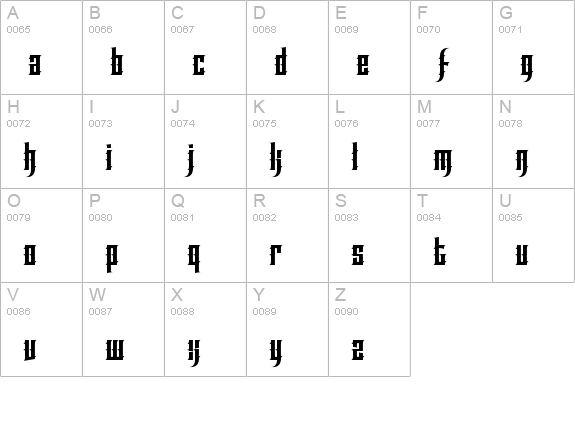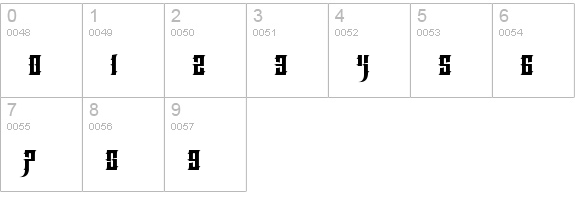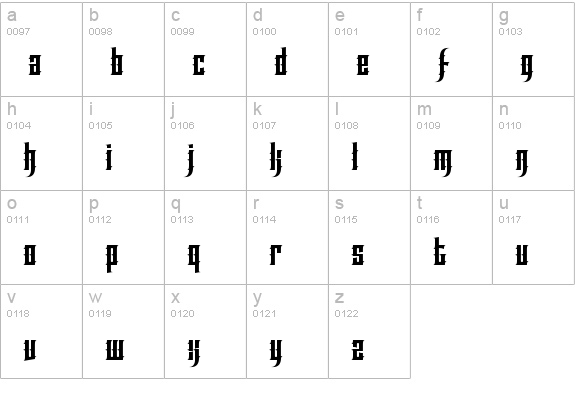
Effortless Tattoo Font Details
Effortless Tattoo font exudes a sense of edgy sophistication with its bold and expressive letterforms that are reminiscent of intricate tattoo designs. This unique font strikes the perfect balance between elegance and rebellion, making it a versatile choice for a wide range of creative projects. Effortless Tattoo font is effortlessly cool and stylish, adding a touch of attitude to any design it graces. Whether you're looking to create striking headlines, eye-catching logos, or captivating posters, this font is sure to make a statement. The best part? Effortless Tattoo font is completely free to download at FontsMarket.com. Embrace your rebellious side and add a touch of artistic flair to your designs with this stunning font today.